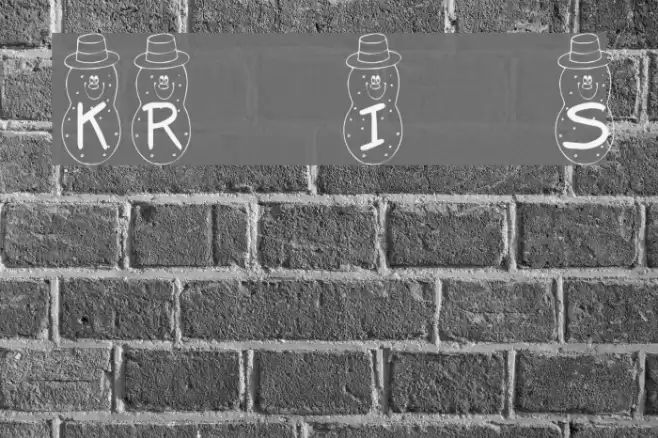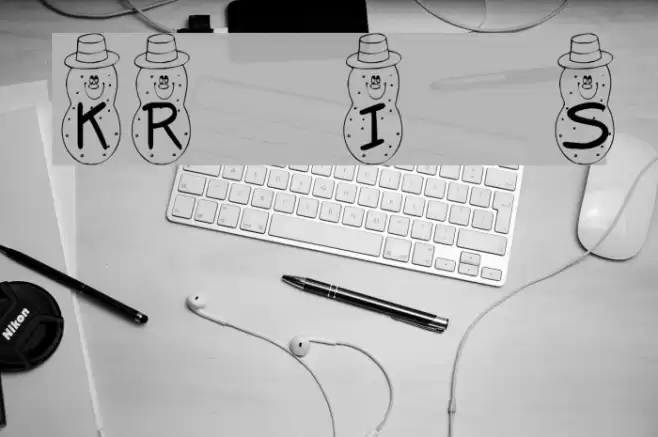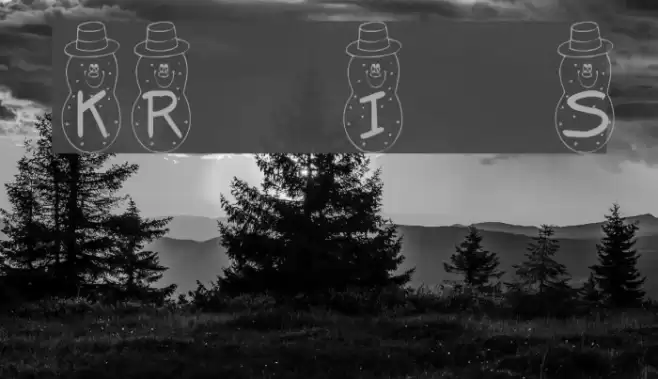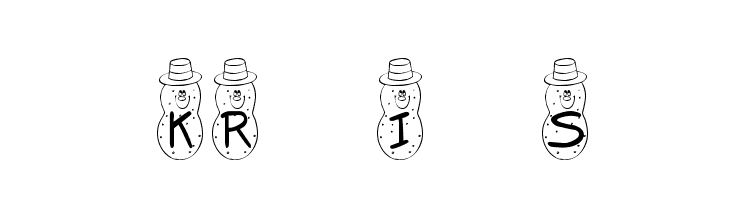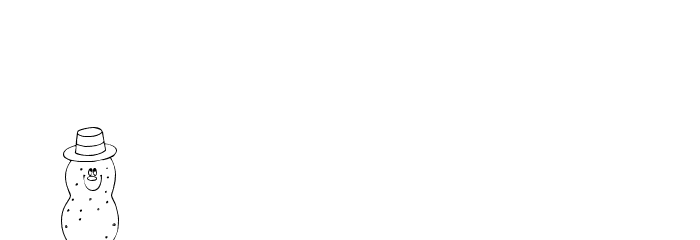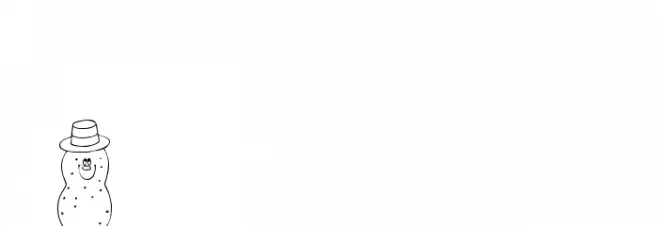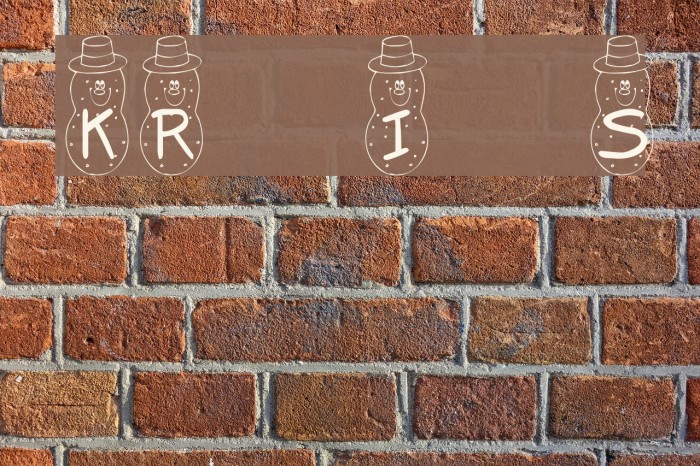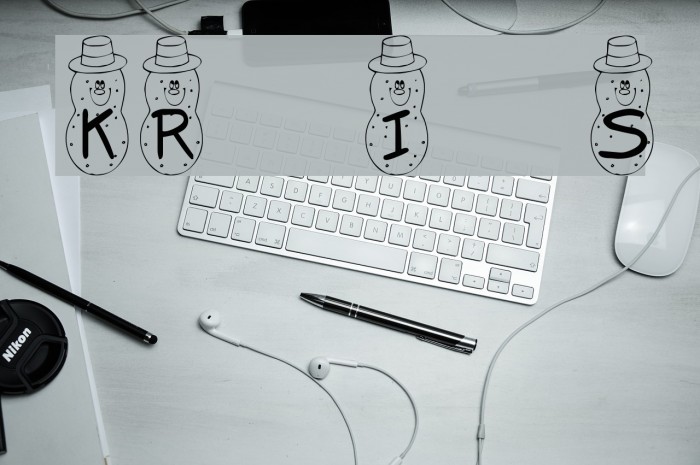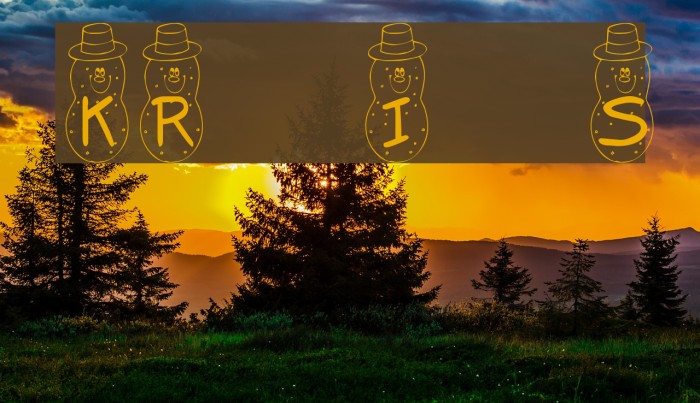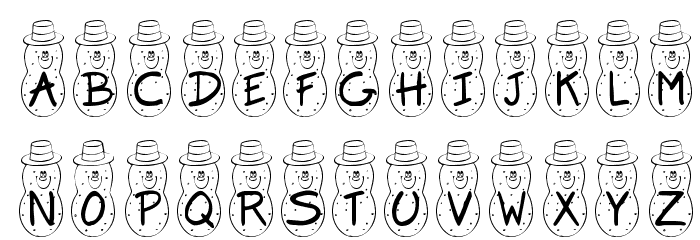
KR Irish Spudman Font
KR Irish Spudman Description
This playful and whimsical font features each letter encapsulated within a cartoonish potato character, complete with a smiling face and a hat. The letters themselves are bold and rounded, providing a friendly and approachable appearance. The design is highly decorative, making it ideal for projects that require a fun and lighthearted touch. The characters are evenly spaced, ensuring readability despite the unique presentation. The font's style is consistent across both uppercase and lowercase letters, maintaining a cohesive look throughout.
A playful, decorative font with letters inside cartoon potato characters from Uncategorized fonts.
- Proposed Projects: Ideal for children's books, playful posters, greeting cards, and themed party invitations.
- Overall Style: Whimsical